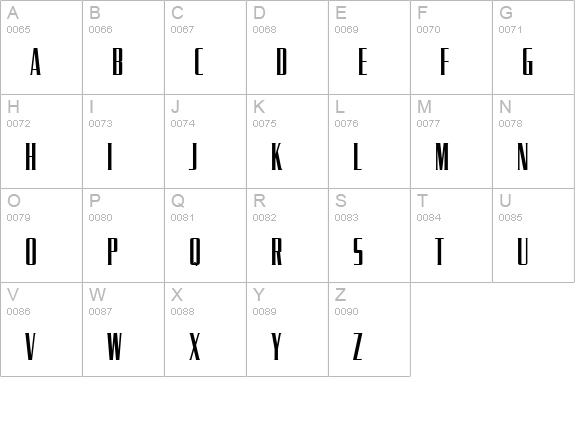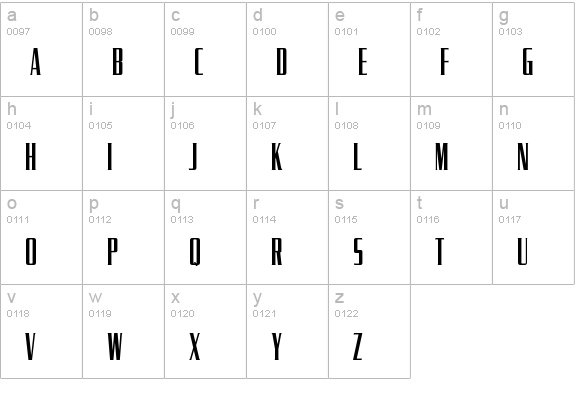
SerpentineComDBol Font Details
SerpentineComDBol font is a sleek and stylish typeface that exudes elegance and sophistication. With its clean lines and contemporary design, this font is perfect for both print and digital projects, making it a versatile choice for designers and creatives alike. This font features bold letterforms that command attention, making it ideal for headlines, logos, and branding materials. Its unique blend of geometric shapes and subtle curves gives it a modern yet timeless appeal, making it suitable for a wide range of design styles. One of the standout features of SerpentineComDBol font is its versatility. Whether you're looking to create a bold and impactful design or a more understated and refined look, this font can adapt to your needs. Its wide range of weights and styles allows for endless possibilities, giving you the freedom to experiment with different aesthetics. And the best part? SerpentineComDBol font is free! That's right, you can download this amazing font without having to spend a dime. Simply visit FontsMarket.com and start exploring the world of SerpentineComDBol font. With its free availability, it's never been easier to enhance your designs with this captivating typeface. So why wait? Unlock your creativity and elevate your designs with SerpentineComDBol font. Whether you're designing a logo, creating a poster, or working on a website, this font is sure to make a lasting impression. With its sleek and stylish design, versatility, and free availability, SerpentineComDBol font is a must-have for any designer or creative looking to make a statement.